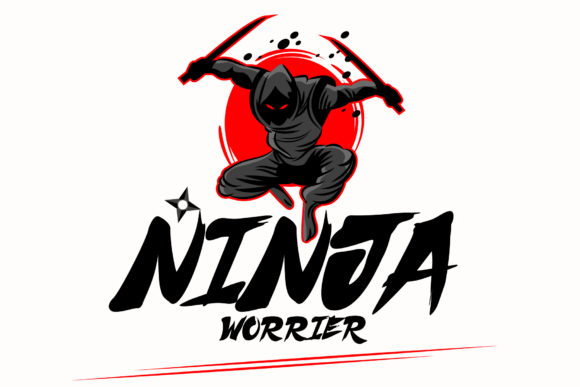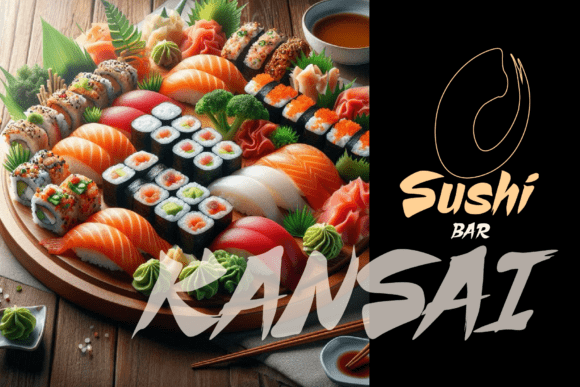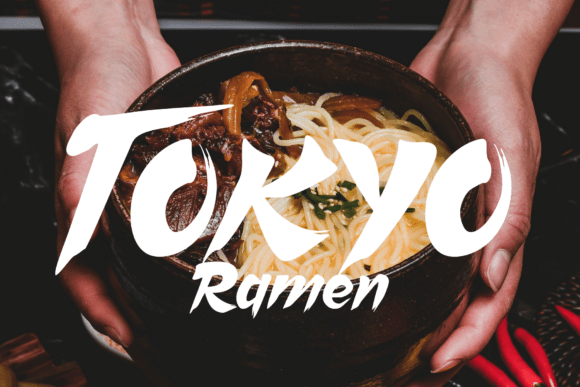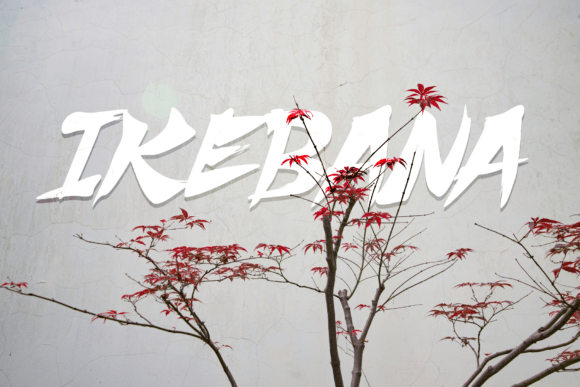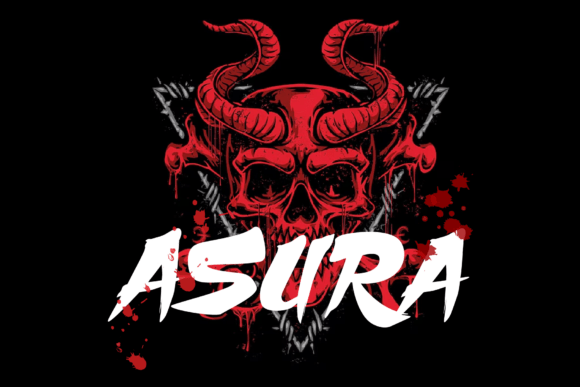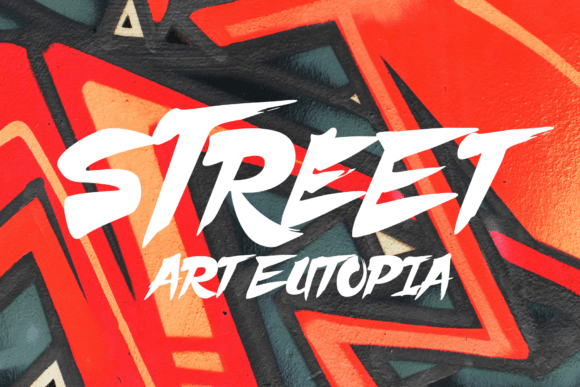
Introduction to Shuriken Font Font
Fonts play a crucial role in design, and the Shuriken Font font is a typeface that brings both character and versatility to any project. Whether you’re working on a branding project, a website, or a print design, the Shuriken Font font offers a unique style that can elevate your work.
Experience the mesmerizing allure of Shuriken, an unparalleled display font, echoing the exquisite artistry of Japan.
Its striking features make it a commanding presence on food menus, captivating poster flyers, or alluring prints With Shuriken, the canvas of creativity is broad and limitless, awaiting your exploration and inventiveness.
Key Features of Shuriken Font Font
Why Choose Shuriken Font Font?
The Shuriken Font font is more than just a typeface – it’s a design tool that helps you communicate your message with style and clarity. Its unique character set and versatile design make it suitable for a wide range of applications, from elegant invitations to bold headlines.
With its carefully crafted letterforms and balanced proportions, the Shuriken Font font ensures readability and visual appeal across all mediums.
What makes Shuriken Font font special?
The Shuriken Font font stands out with its unique design, exceptional readability, and versatility across various design applications.